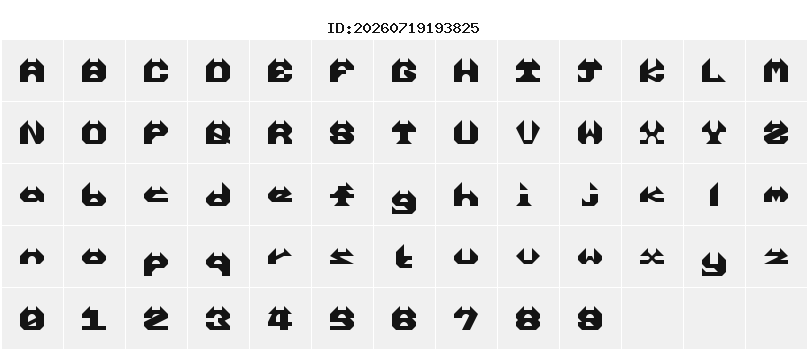
• Font Name: enrealhorns
• Font ID: FontStruct enrealhorns
• Full Font Name: enrealhorns Regular
• PostScript Name: enrealhorns
• Copyright: Copyright naveen chandru 2010 “enrealhorns” is based on “enhorns” by “naveen chandru” (http://fontstruct.fontshop.com/fontstructors/naveenchandru)
• Designer: naveen chandru
• Description: “enrealhorns” was built with FontStruct “enrealhorns” is based on “enhorns” by “naveen chandru” (http://fontstruct.fontshop.com/fontstructors/naveenchandru)
About enrealhorns.ttf